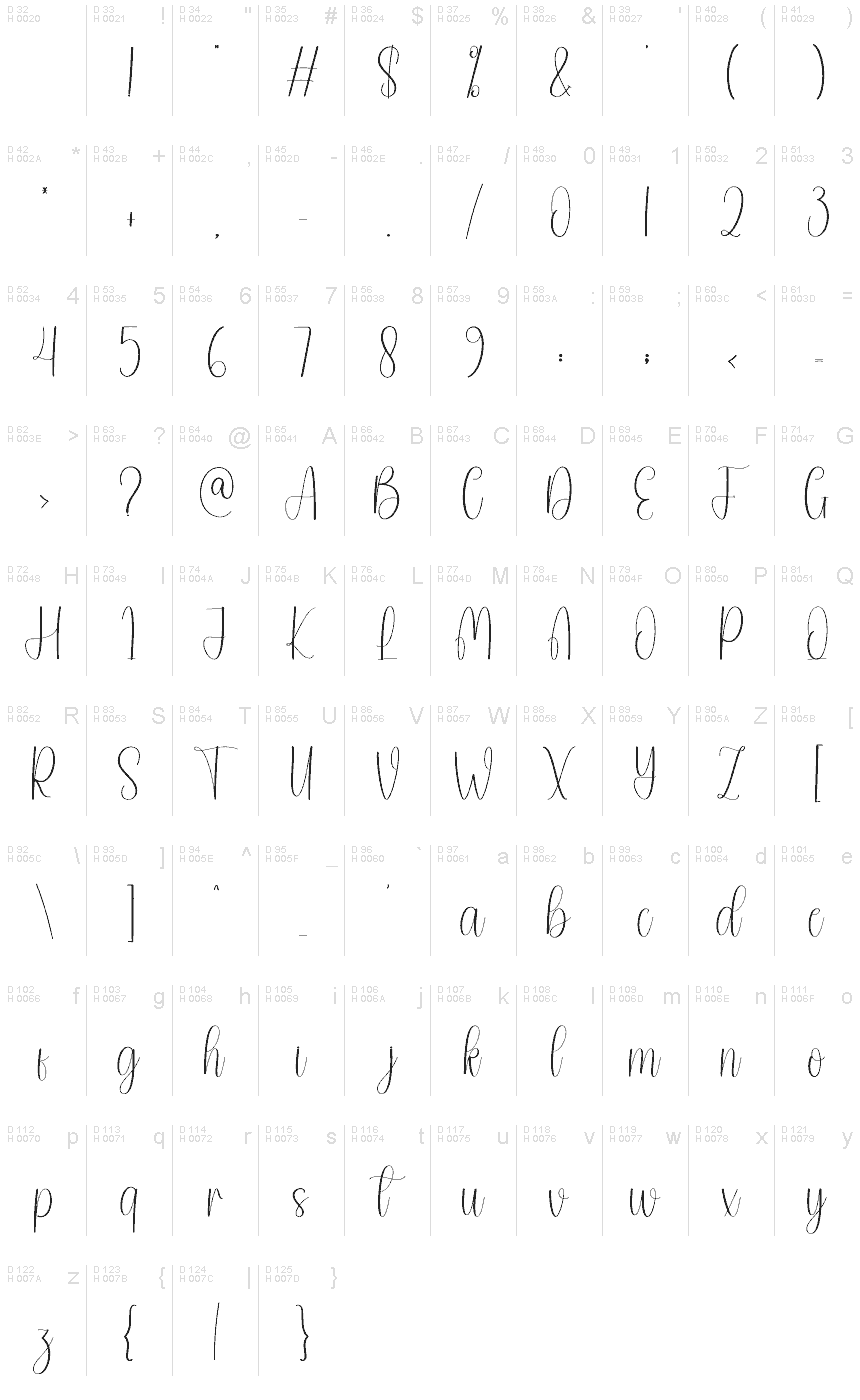
Belgian
Belgian font by Andi Moz is a handwritten, light, and condensed flowing font with elegant calligraphy forms. This expressive modern script embodies sophisticated decorative flair making it perfect for those who wish to exude an upscale atmosphere within their texts.